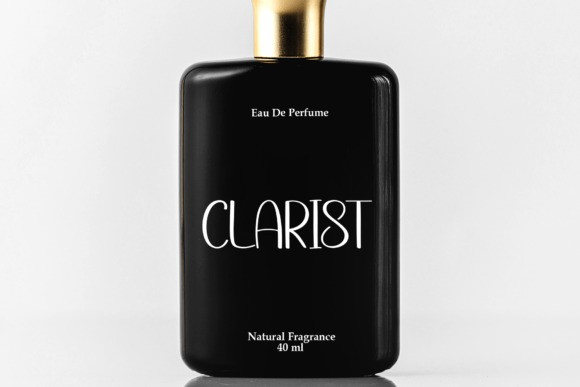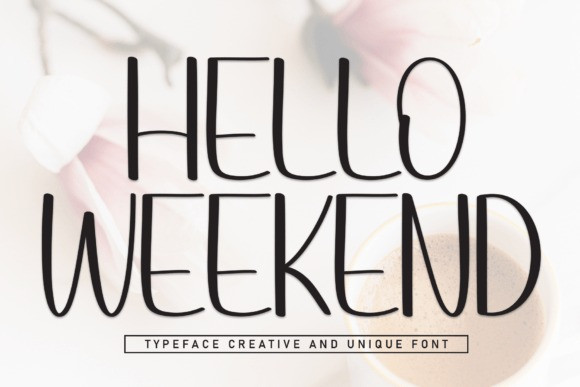
Hello Weekend Font
Hello Weekend Font is a sweet and friendly handwritten font. Cute yet versatile, this font is ideal for writing wedding invitations, cards, or any other design that might need a lovely touch!